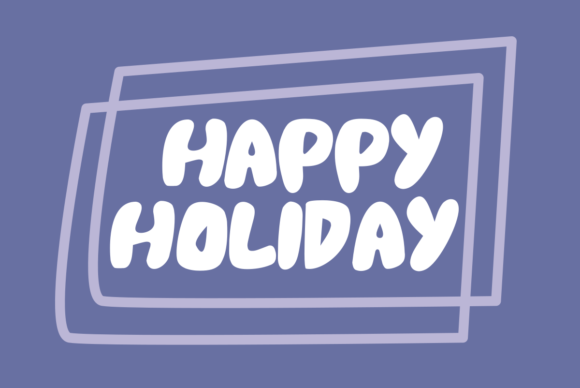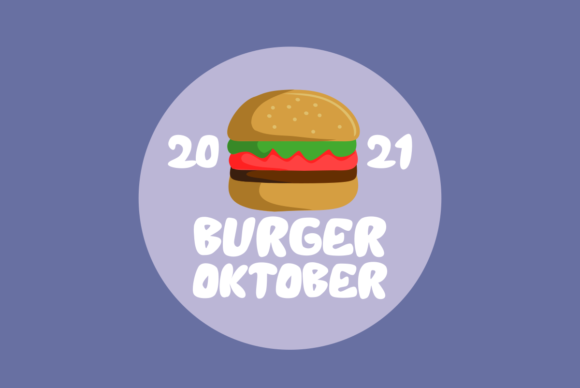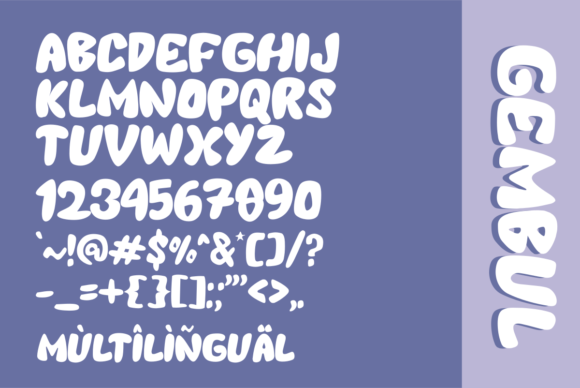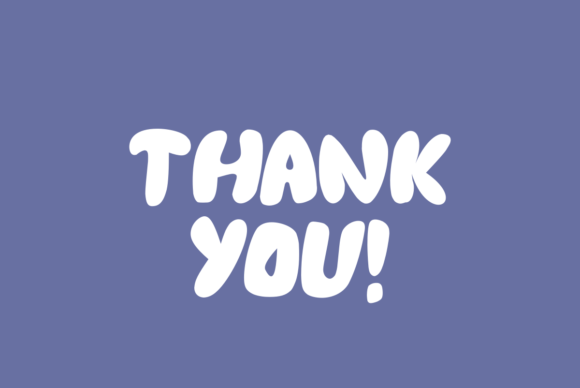
Unleash the Whimsy with Gembul Font
Have you ever stumbled upon a font that makes you smile? A font that whispers ‘let’s have fun’ and sparks creativity? For many designers, this moment is what sets their imagination ablaze. It’s the moment when a font transcends mere typography and becomes a visual storyteller. This is exactly what happens when you lay eyes on the Gembul Font – a delightful, quirky font that brings a breath of fresh air to your designs.
As a versatile font, Gembul is perfect for children’s books, quotes, posters, ads, book titles, invitations, cards, and many more creative projects. Its charm lies in its ability to evoke a sense of playfulness and innocence, making it an excellent choice for designers who want to convey a lighthearted tone.
Whether you’re a seasoned designer or just starting out, the Gembul Font is a valuable addition to your creative toolkit. Its unique style and versatility make it an ideal choice for a wide range of projects, ensuring that your designs stand out from the crowd.
Gembul Font Key Features
- Unique Characteristics: Gembul Font features a unique, modern design with a mix of geometric and organic elements, creating a visually appealing and distinctive look.
- Font Weight and Style: Gembul Font comes in multiple weights, from Light to Bold, and various styles, including Regular, Italic, and Bold Italic, offering designers a range of options to suit their needs.
- Scalability: The font is designed to be highly scalable, ensuring that it remains clear and legible at various sizes and resolutions, from small text to large headings.
Gembul Font Review
I recently had the chance to work with the Gembul font, and I must say it’s an interesting addition to any design project. ✨ One of the things that works well with Gembul is its unique blend of modern and traditional elements. It’s perfect for projects that require a touch of elegance and sophistication.
Limitsations:
- ⚠️ While Gembul is a beautiful font, it may not be the best choice for projects that require a highly legible font. Some characters, such as ‘g’ and ‘q’, can be difficult to read at smaller sizes.
- ⚠️ Additionally, the font’s unique styling may not be suitable for all design projects. For example, it may not be the best choice for projects that require a clean, minimal aesthetic.
Overall, I think Gembul is a great addition to any designer’s toolkit. While it may have some limitations, its unique blend of modern and traditional elements makes it a great choice for projects that require a touch of elegance and sophistication.
For a more polished look, use Gembul font in combination with other elegant fonts.
Use Gembul font to create visually appealing titles and headings.
Use Gembul font for:
- Brand logos and identity design
- Stationery and business cards
For a more elegant look, pair Gembul font with serif fonts like Times New Roman or Georgia.